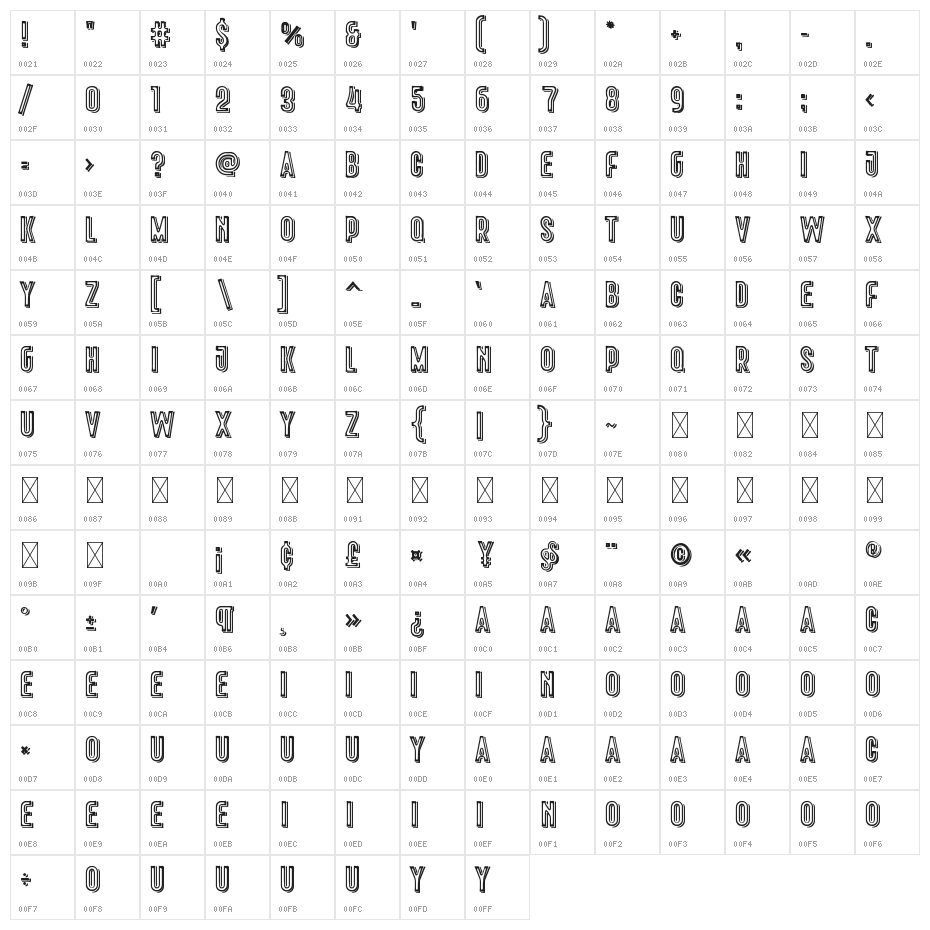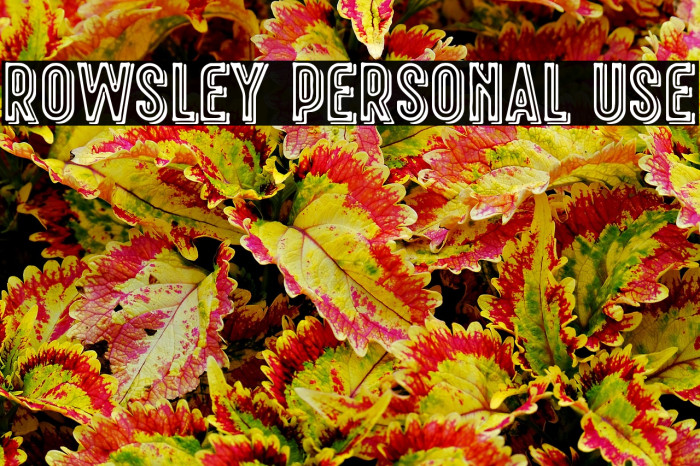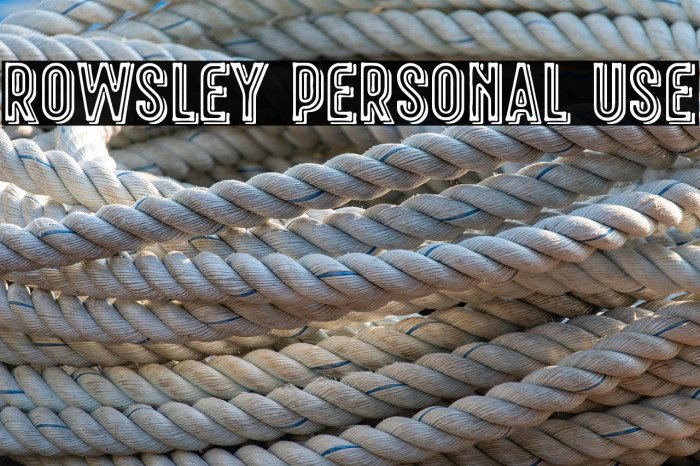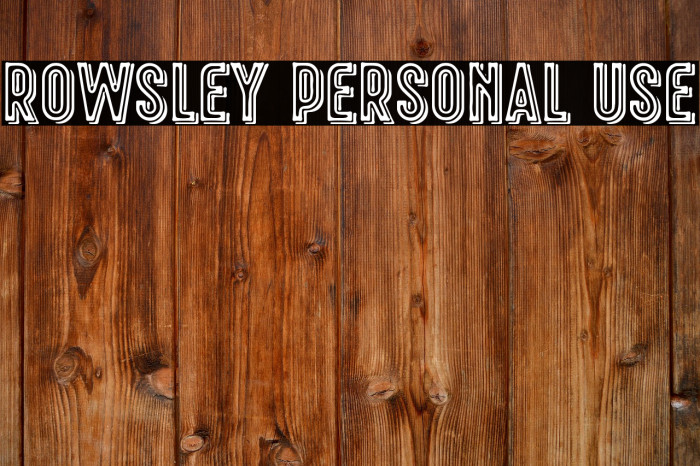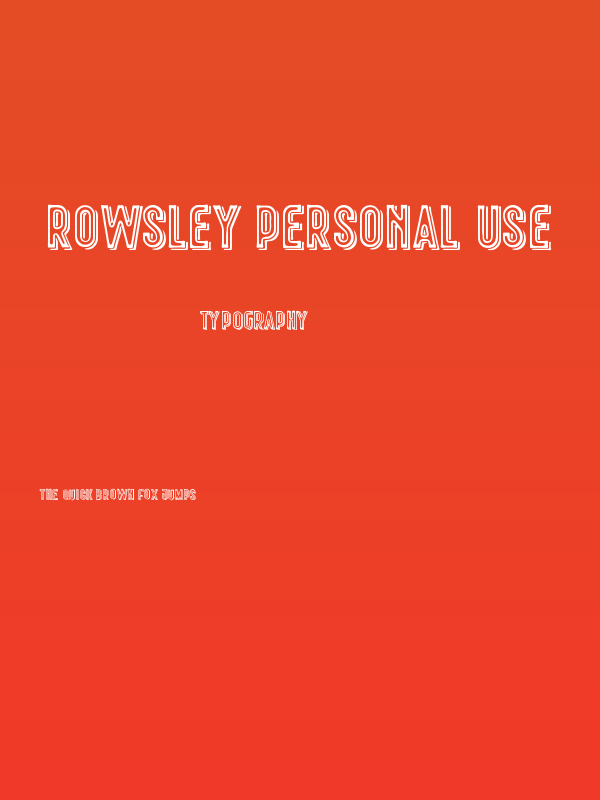
Rowsley Personal Use Font
Rowsley Personal Use Description
This font features a bold, decorative style with a distinct outline that gives it a three-dimensional appearance. The characters are uppercase and numerals, with a consistent width and height across the set. The design includes a double-line effect that adds depth and visual interest, making it stand out in any design. The font is highly stylized, with sharp angles and clean lines that contribute to its modern and edgy look. The special characters are designed to match the boldness of the letters and numbers, maintaining the overall aesthetic. This font is perfect for projects that require a strong visual impact.